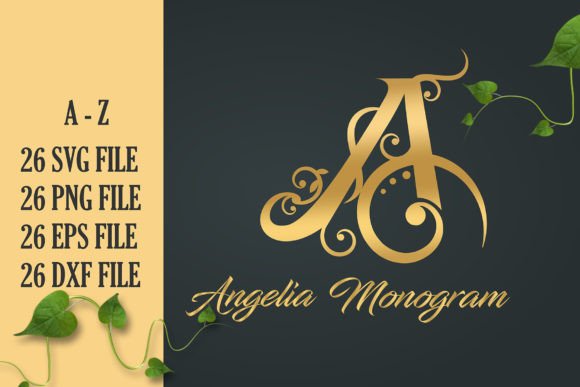
Introducing Angelia Monogram Font: Elevate Your Designs with Luxury and Elegance
In the world of typography, a well-crafted monogram font can make all the difference in creating a lasting impression. For designers and brands seeking to add a touch of sophistication and class to their projects, Angelia Monogram Font is an exceptional choice. This luxurious and modern monogram font is specifically designed to bring a sense of high-end style to luxury brands, fashion, beauty, and various design projects.
What Makes Angelia Monogram Font Stand Out?
Angelia Monogram Font is distinguished by its intricate details and elegant letterforms. Each character is carefully crafted to exude a sense of luxury and refinement, making it perfect for designers who aim to create high-end designs. The font’s modern aesthetic ensures that it remains versatile and adaptable to a wide range of design applications.
Ideal Design Applications for Angelia Monogram Font
Angelia Monogram Font is incredibly versatile and can be used across various design projects, including:
- Luxury Brands: Enhance your brand’s identity with a sophisticated and elegant monogram that reflects high-end quality.
- Fashion and Beauty: Add a touch of glamour and style to your fashion or beauty brand’s designs, packaging, and marketing materials.
- Wedding and Event Design: Create stunning wedding invitations, event branding, and stationery that exude elegance and refinement.
- Corporate and Business: Elevate your business’s visual identity with a professional and luxurious monogram font.
Typography Tips for Using Angelia Monogram Font
To maximize the impact of Angelia Monogram Font, consider the following typography tips:
- Pair with Neutral Fonts: Combine Angelia Monogram Font with clean and neutral fonts to create a balanced and harmonious design.
- Experiment with Colors: Take advantage of the font’s versatility by experimenting with different colors and gradients that match your brand’s aesthetic.
- Play with Sizes: Use varying font sizes to create visual hierarchy and emphasize key elements in your design.
Benefits of Using Angelia Monogram Font
By incorporating Angelia Monogram Font into your designs, you can enjoy several benefits, including:
- Enhanced Brand Image: A luxurious and modern monogram font can significantly enhance your brand’s image and reputation.
- Increased Versatility: The font’s adaptability to various design applications makes it a valuable addition to your typography collection.
- Unique Designs: With Angelia Monogram Font, you can create unique and eye-catching designs that set you apart from the competition.
What Designers Say About Angelia Monogram Font
Angelia Monogram Font has been a game-changer for my design business. The level of sophistication and elegance it brings to my projects is unmatched.
Emily R., Graphic Designer
I was blown away by the versatility and quality of Angelia Monogram Font. It’s now a staple in my typography collection.
David K., Creative Director
Angelia Monogram Font is an exceptional choice for designers and brands seeking to add a touch of luxury and elegance to their projects. With its intricate details, elegant letterforms, and versatility, this modern monogram font is perfect for creating high-end designs. By incorporating Angelia Monogram Font into your typography collection, you’ll be able to elevate your designs and create a lasting impression.